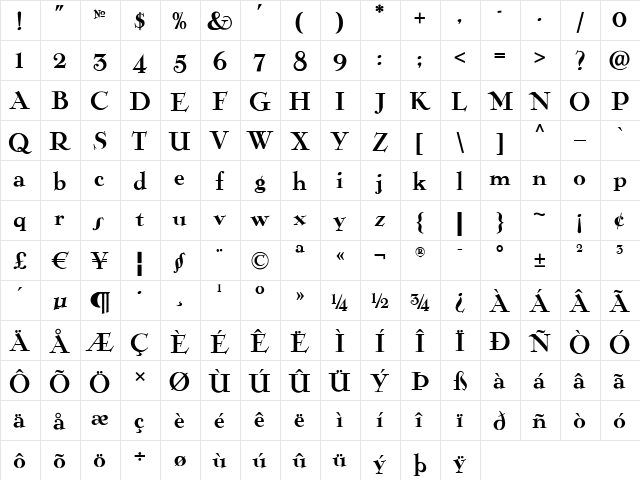
Kifisia Antigua NF Medium
Design Context for Kifisia Antigua NF Typeface
Kifisia Antigua NF is a composed and adaptable typeface that performs quietly and consistently across a wide range of design contexts.